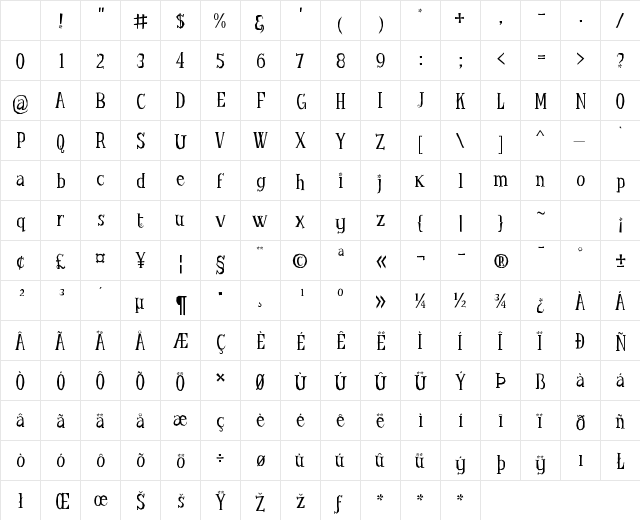
Complete Little Trouble Girl Regular glyph index. Displaying only characters natively supported by Little Trouble Girl Regular font.
Little Trouble Girl is a composed and adaptable typeface that performs quietly and consistently across a wide range of design contexts.